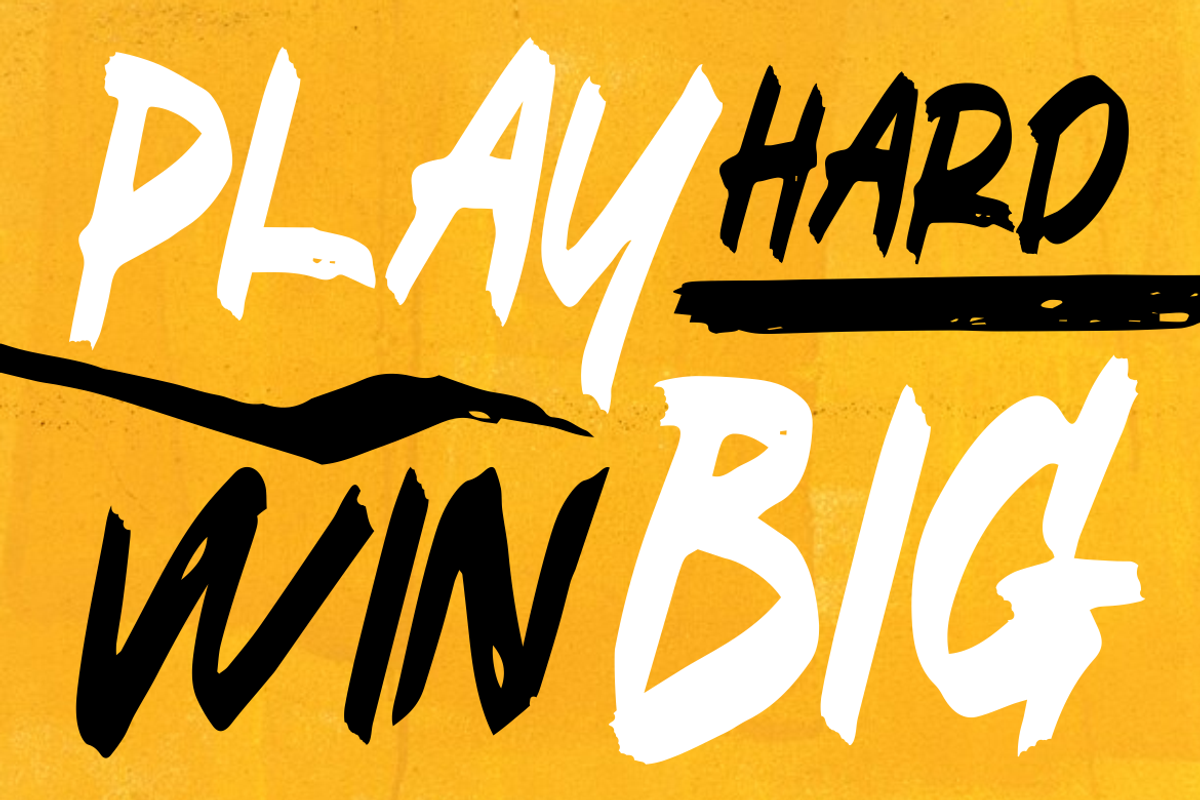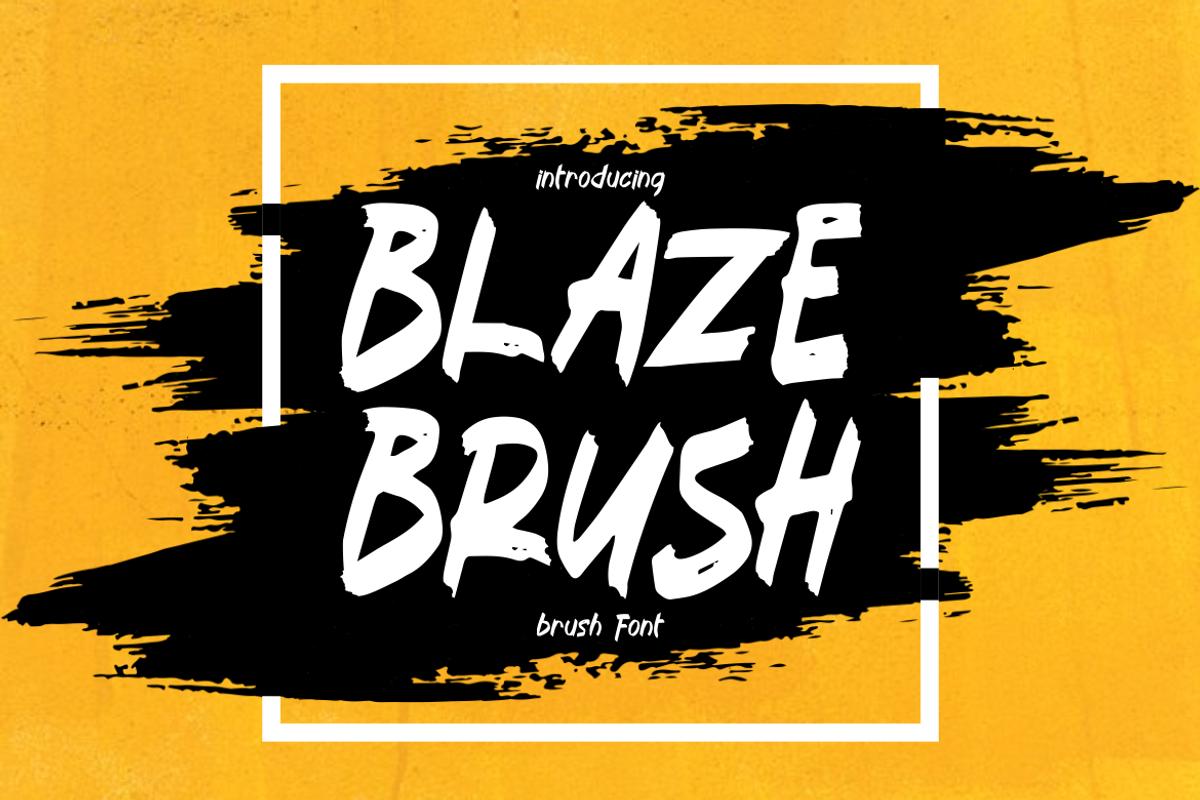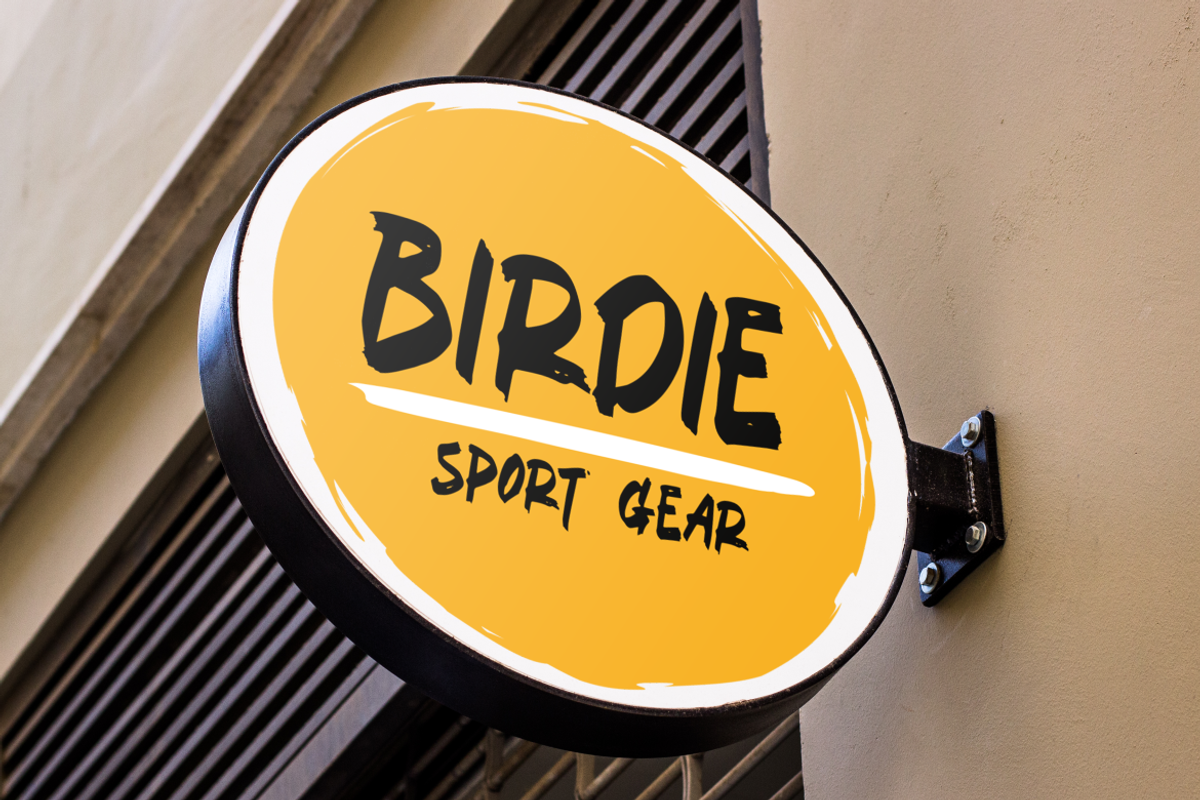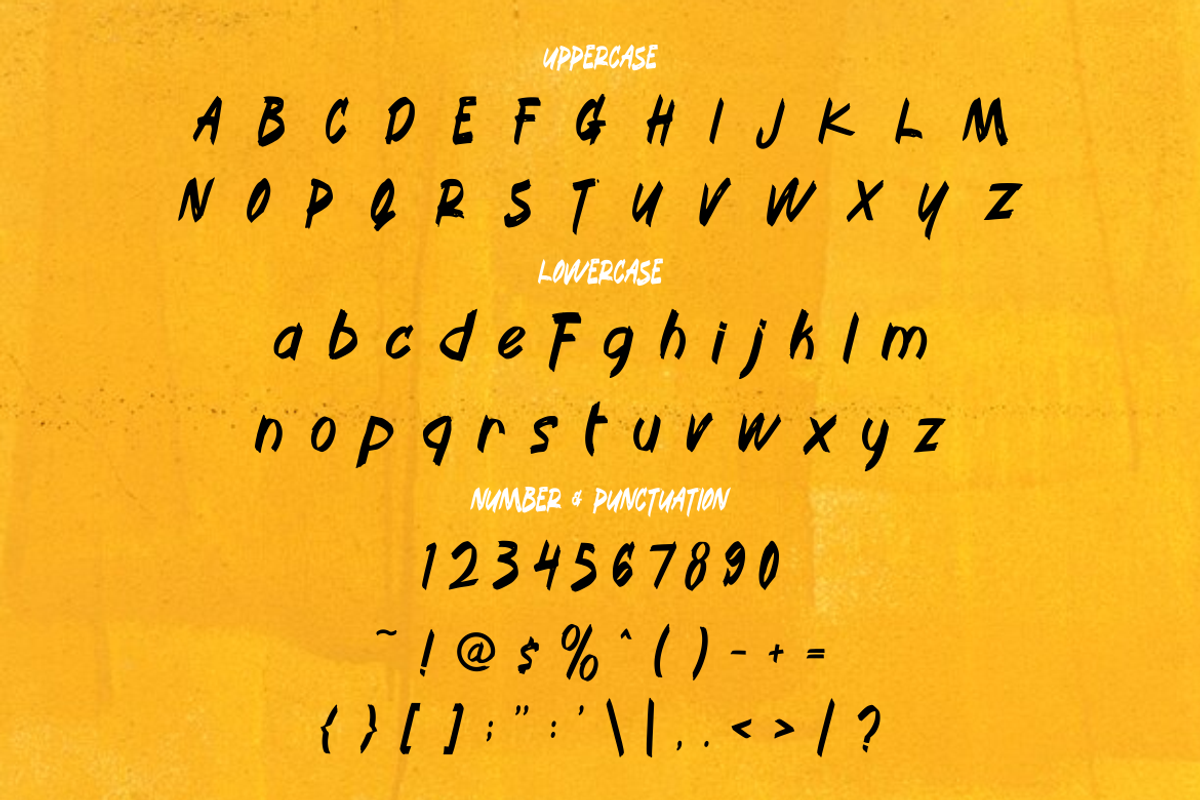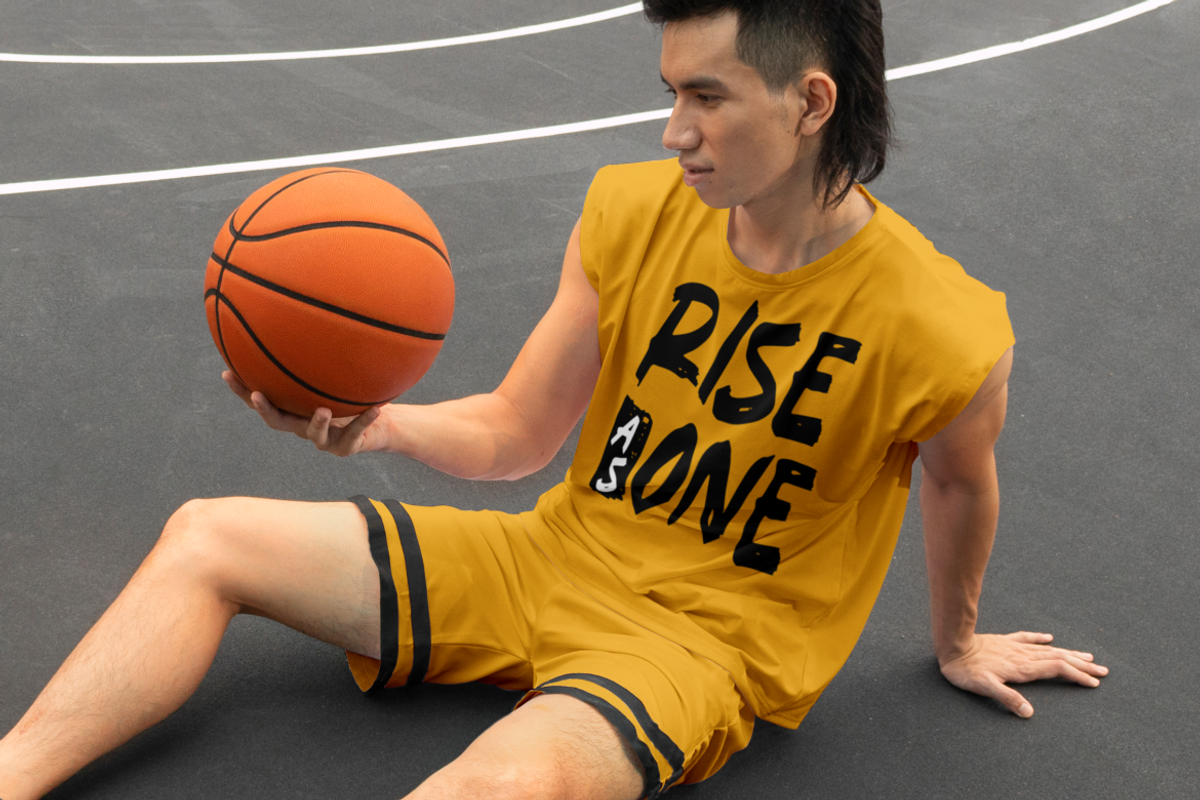
Blaze Brush - Brush Font
Introducing Blaze Brush - Brush Font, a bold and energetic typeface designed to make a strong visual impact. This font features rough, hand-painted strokes with a rugged texture that exudes power and intensity. The brush-style lettering gives off an urban, sporty, and dynamic feel, making it perfect for designs that demand attention. The composition in the image showcases the font on a vibrant yellow background, with bold black brush strokes adding a grunge aesthetic. The uneven, rough-edged characters convey movement and excitement, ideal for sports branding, music posters, apparel designs, and action-packed headlines.
Blaze Brush is an excellent choice for designers looking to add a bold and rebellious touch to their projects. Whether you're creating a striking logo, powerful marketing materials, edgy packaging, or impactful social media graphics, this font will elevate your visuals with its raw, handcrafted appeal. With its high-energy brush strokes and urban street-art influence, Blaze Brush delivers an unmistakable, rugged charm that stands out in any design. Get ready to ignite your creativity with this powerful font!